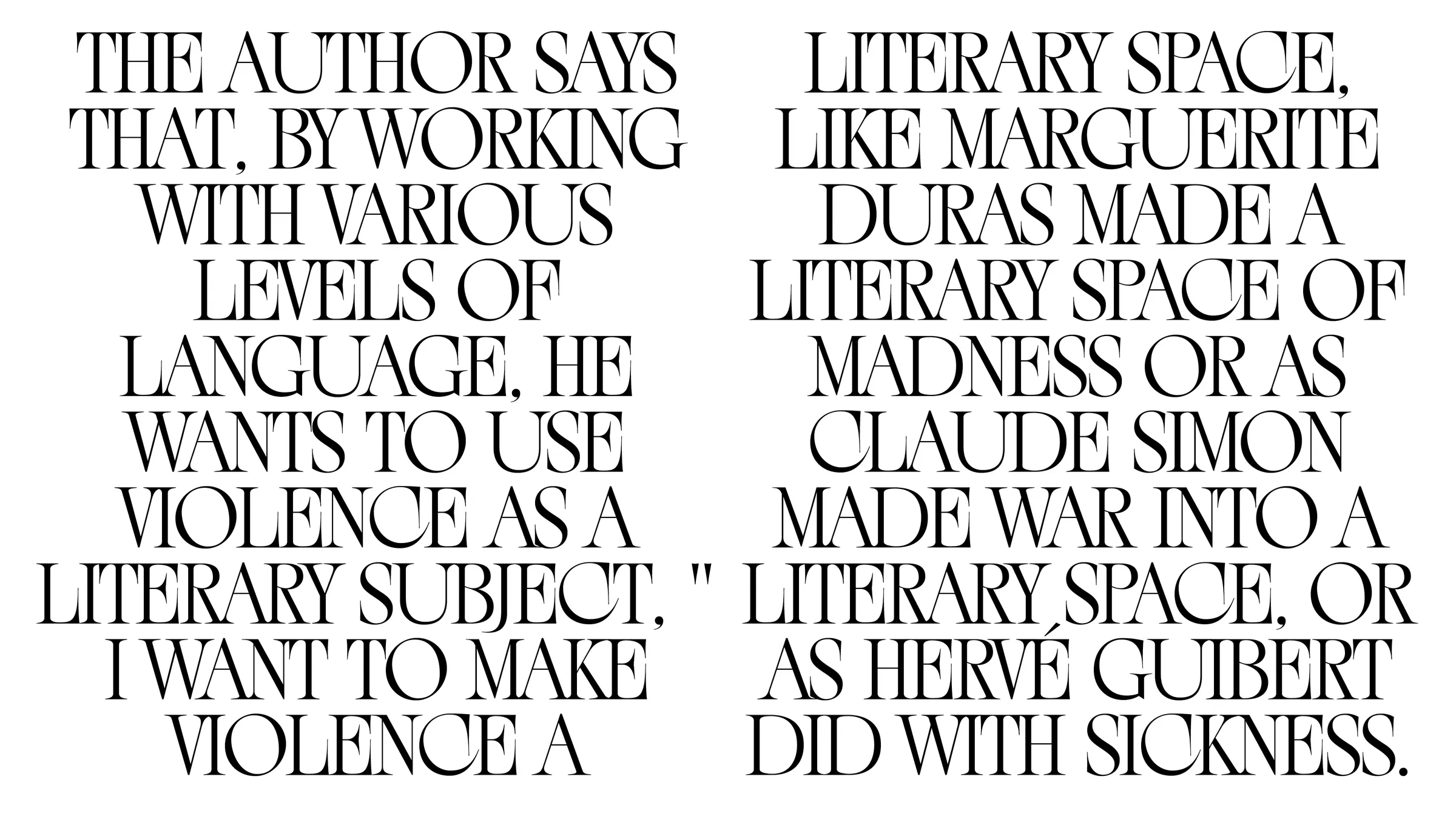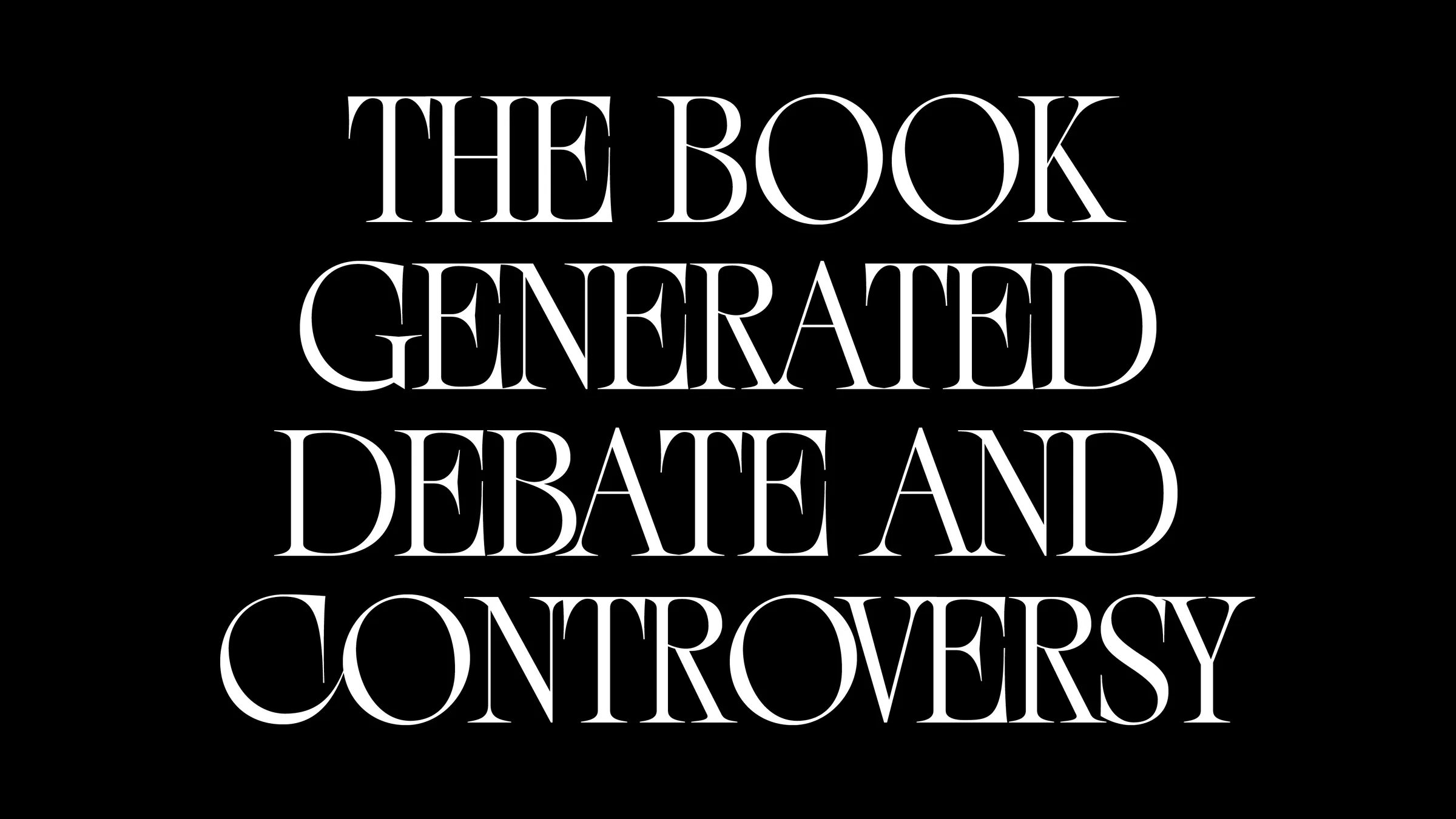
The New Eddy font was created for a very specific mission: to take its place on a giant screen during a dance performance. The aim was to push back the limits of contrast while remaining technically legible on a large scale. The result is a titling typeface condensed in a regular weight, marked by pronounced contrast and exaggerated serifs that give it a unique personality. New Eddy goes to extremes with its long, tapering lines and high-waisted capitals, deliberately flirting with caricature, while remaining legible and stable. What sets New Eddy apart is its captivating visual rhythm, resulting from the combination of particularly large round shapes with narrower letters. This creates an intriguing typographic texture when used to compose words and texts. Some of New Eddy's typefaces even have a construction reminiscent of art deco typefaces, such as B, R, P and E, among others. New Eddy shows a lot of personality through its shapes, making it an expressive and striking contemporary typeface.